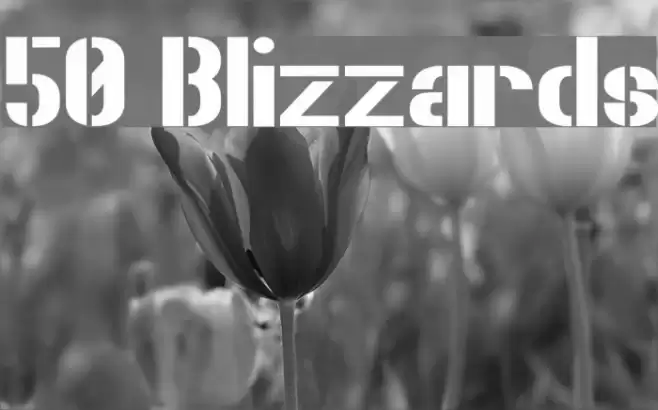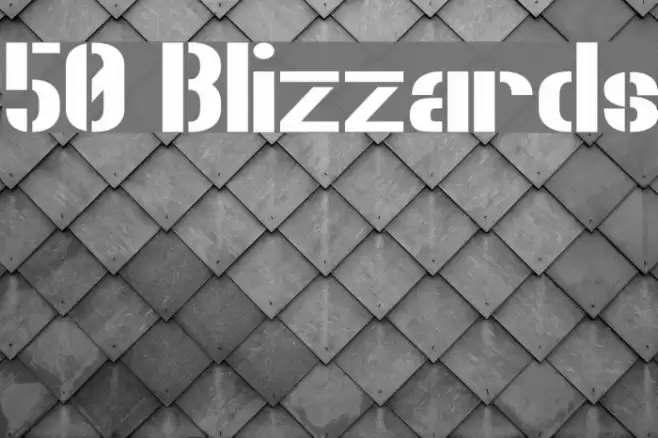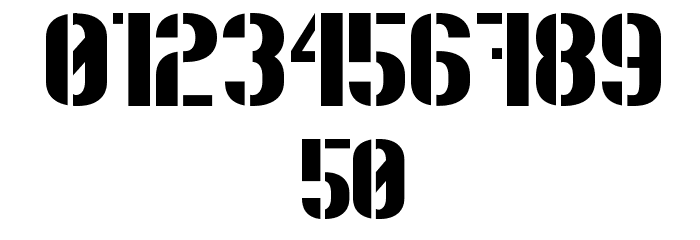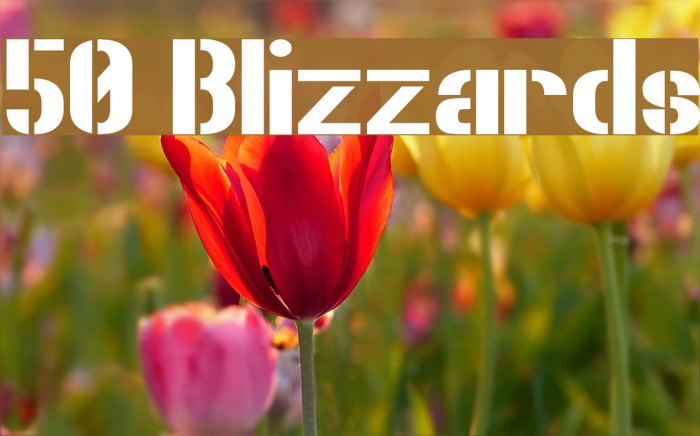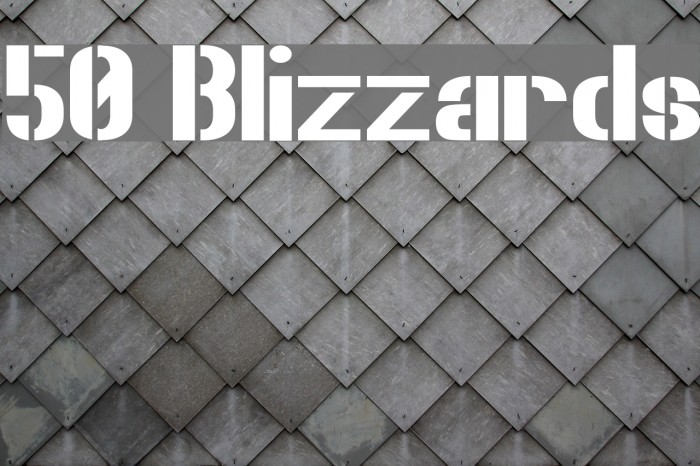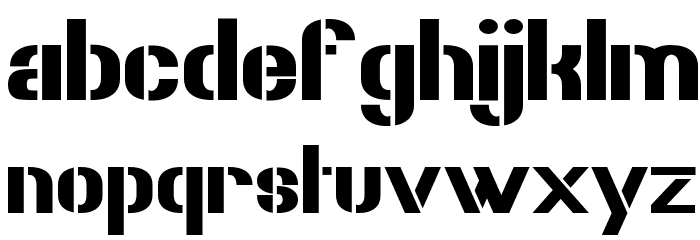
50 Blizzards Font
50 Blizzards Description
This font features a bold and striking design with a modern, stencil-like appearance. The characters are constructed with thick strokes and distinct cut-out sections, giving it a unique and industrial feel. The uppercase letters are particularly prominent, with a strong geometric influence, while the lowercase letters maintain a consistent style. The numbers and special characters follow the same bold and segmented pattern, ensuring uniformity across all glyphs. This font's design is both eye-catching and functional, making it suitable for a variety of creative applications.
A bold, modern font with a stencil-like, industrial design from Uncategorized fonts.
- Proposed Projects: Ideal for branding, posters, headlines, and any project requiring a strong visual impact.